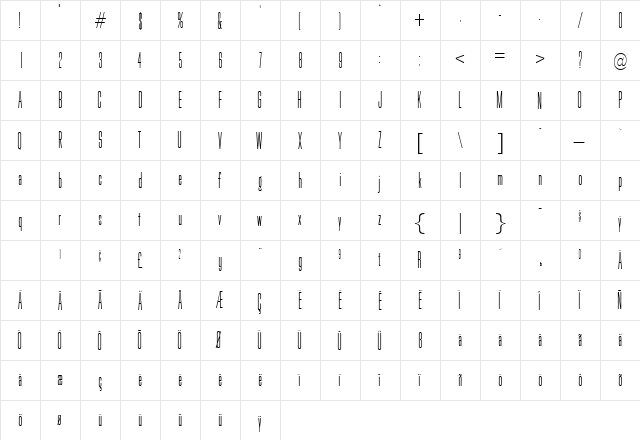
Goldhawk DB Regular
Design Context for Goldhawk DB Typeface
Goldhawk DB offers clean, dependable letterforms without strong stylistic allegiance, making it a practical choice for designers who need flexibility.